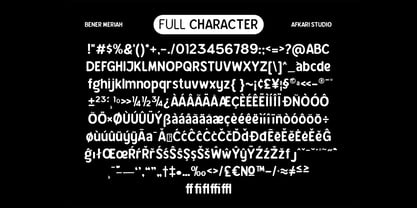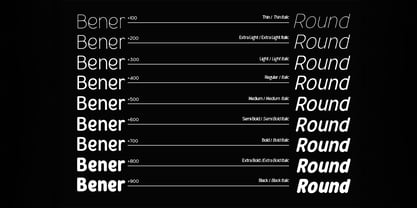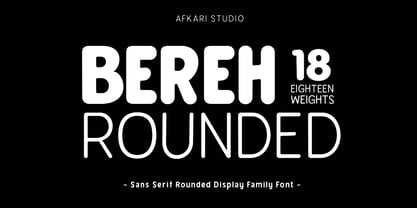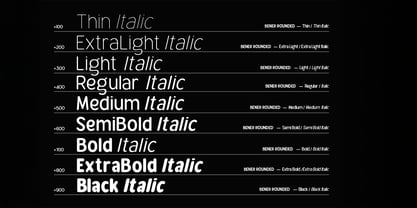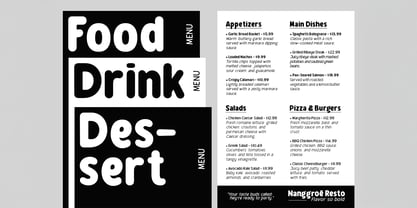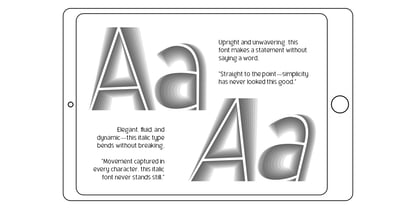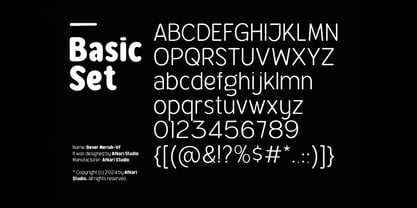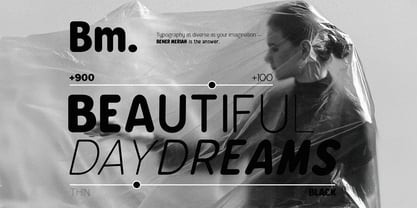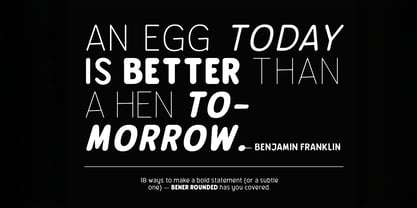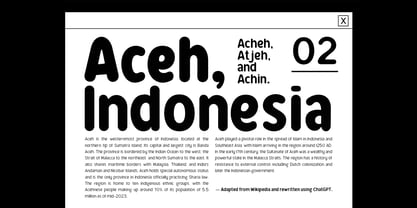
Bereh Rounded
Die Schriftfamilie Bereh Rounded wurde von Musthafa Kamal Emje entworfen und von Afkari Studio veröffentlicht. Bereh Rounded enthält 18 Stile und Familienpaketoptionen. Mehr über diese Familie
Bener Rounded is a rounded sans serif display font family designed to bring warmth, clarity, and modern charm to your designs. With smooth curves and soft terminals, this typeface balances playful friendliness with professional readability, making it perfect for both creative and commercial projects. Built as a font family, Bener Rounded offers flexible weights that adapt effortlessly to branding, UI design, packaging, editorial layouts, and digital content. Its rounded construction creates an approachable personality while maintaining clean geometry—ideal for brands that want to feel modern, trustworthy, and human. Whether you’re designing logos, headlines, posters, apps, or social media visuals, Bener Rounded delivers consistent style and strong visual appeal across all platforms. Highlighted Features: 1. Wide Range of Weights Bener Rounded includes 18 weights, from Thin to Black, with matching Italics for every weight. This gives you the flexibility to create bold headlines, clear body text, and everything in between. 2. Clean and Modern Design With its sleek, minimalist style, Bener Rounded works well for both professional and creative projects, fitting seamlessly into today’s design trends. 3. Versatile for Any Size Whether you’re designing large banners or small paragraphs, this font family ensures excellent readability and impact, making it suitable for both digital and print media. 4. Matching Italics Each weight comes with an italic version, allowing you to add emphasis or create a more dynamic look while keeping a consistent style. 5. Perfect for Various Projects From branding and advertising to web design and packaging, Bener Rounded’s clean and adaptable style makes it an excellent choice for a wide range of applications. 6. Mültîlíñgúãl Sùppört Bener Rounded includes multilingual support for special characters like ä, ö, ü, Ä, Ö, Ü, ß, ¿, ¡, ensuring it can adapt to a global audience and enhance international designs. Hope you enjoy our font and this font is a useful font for your projects!